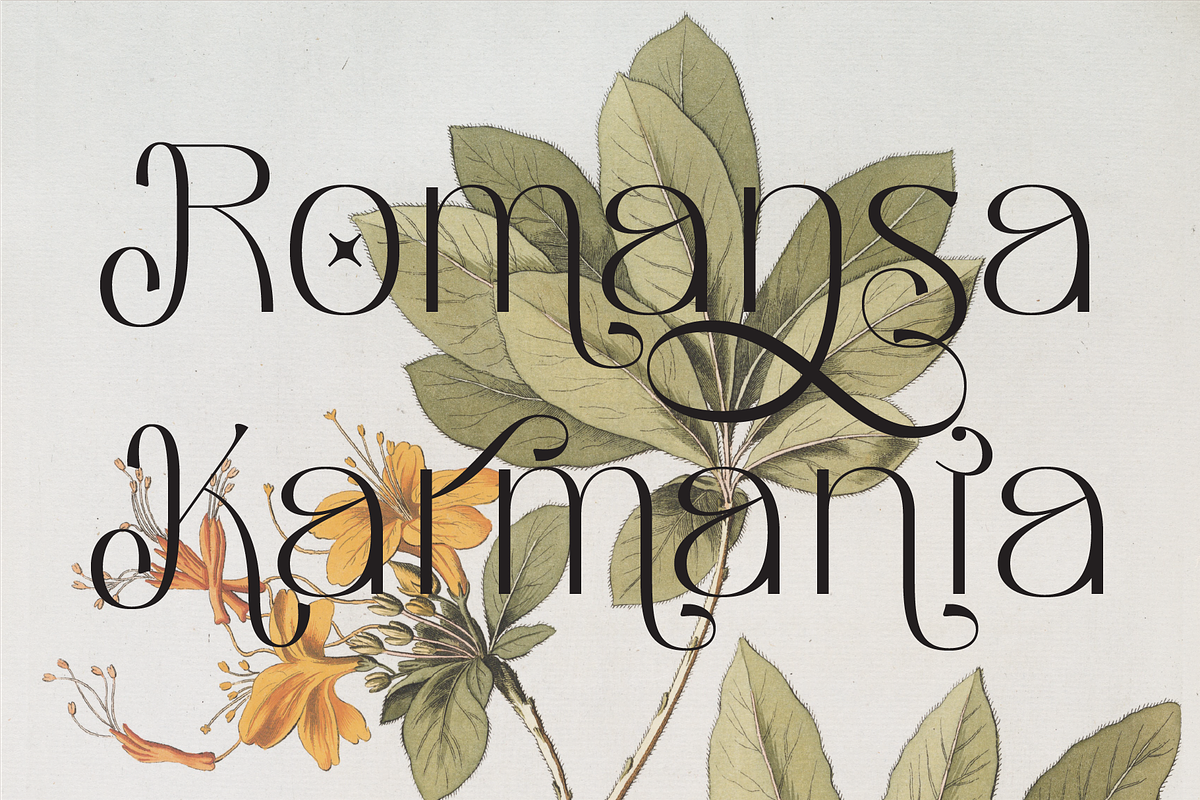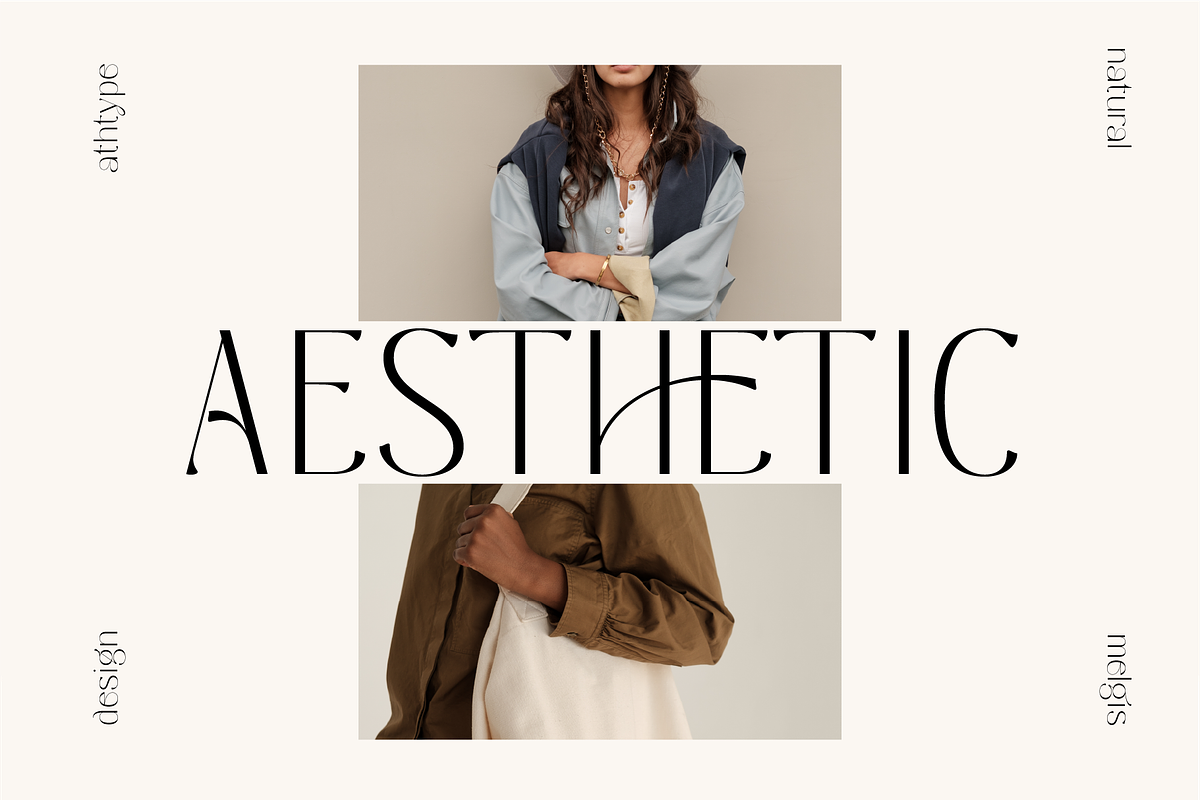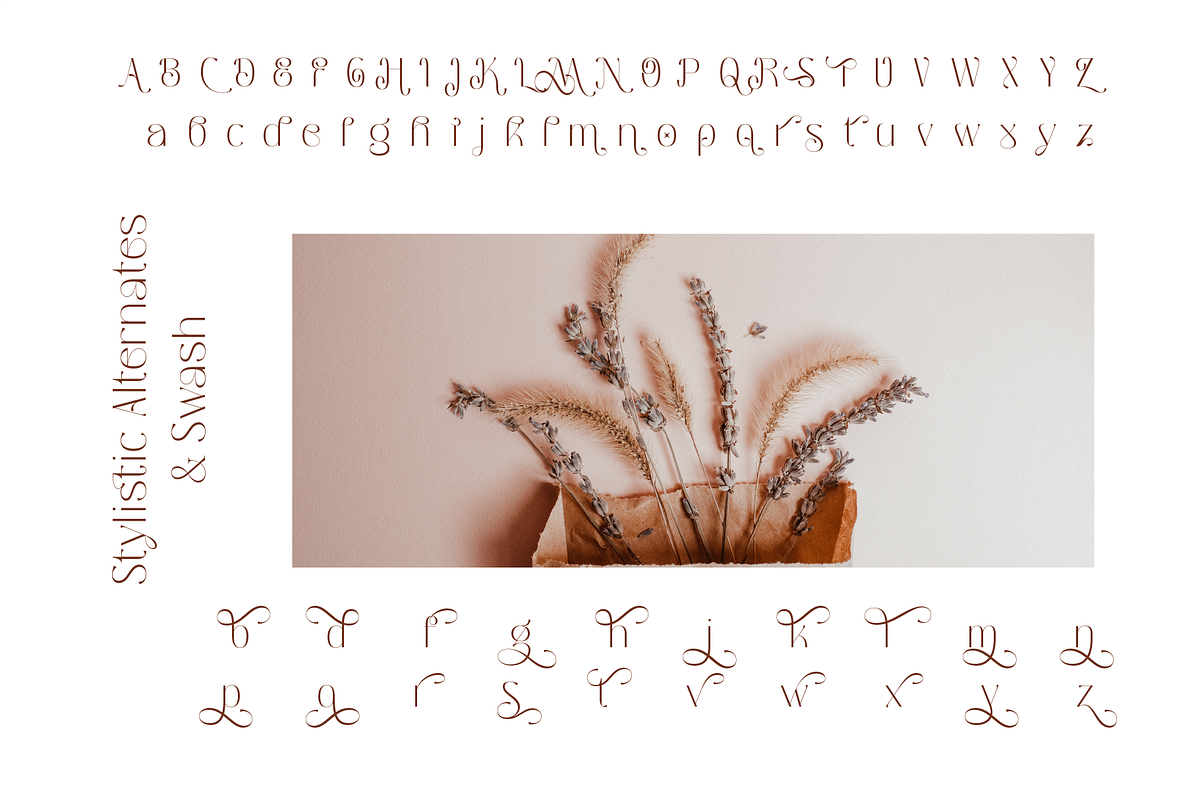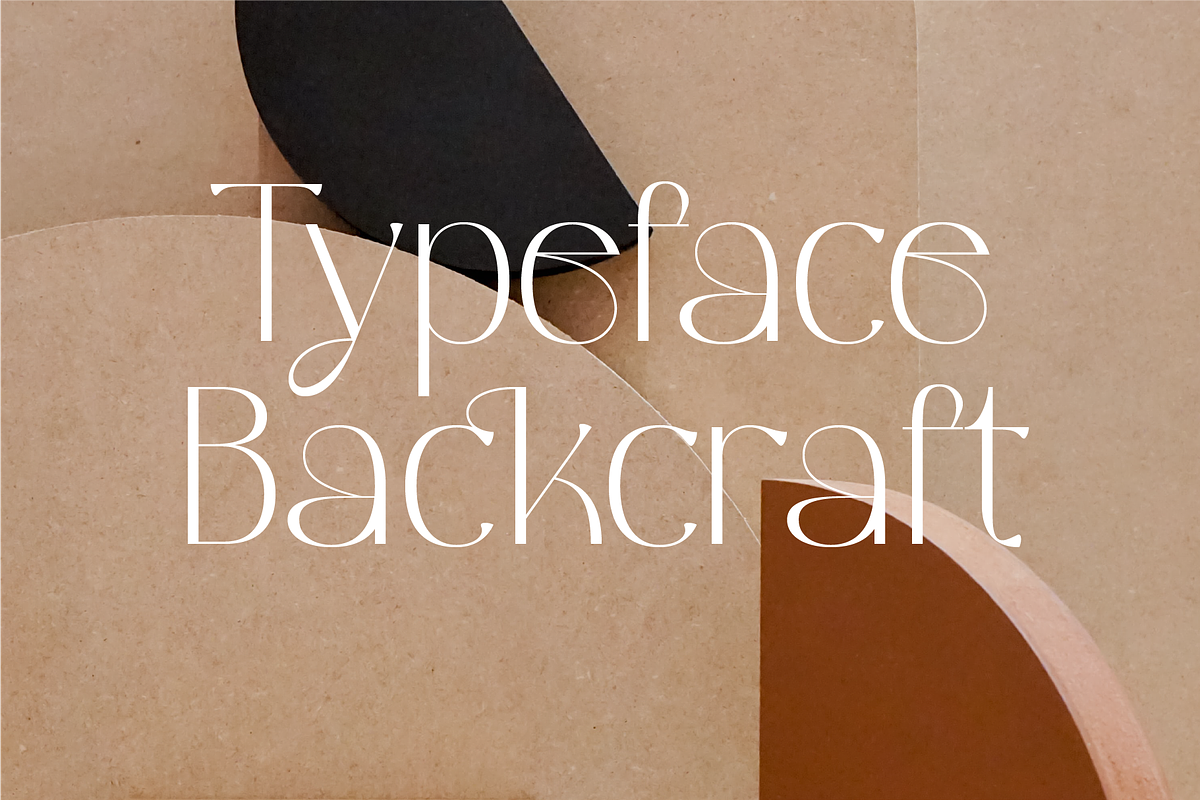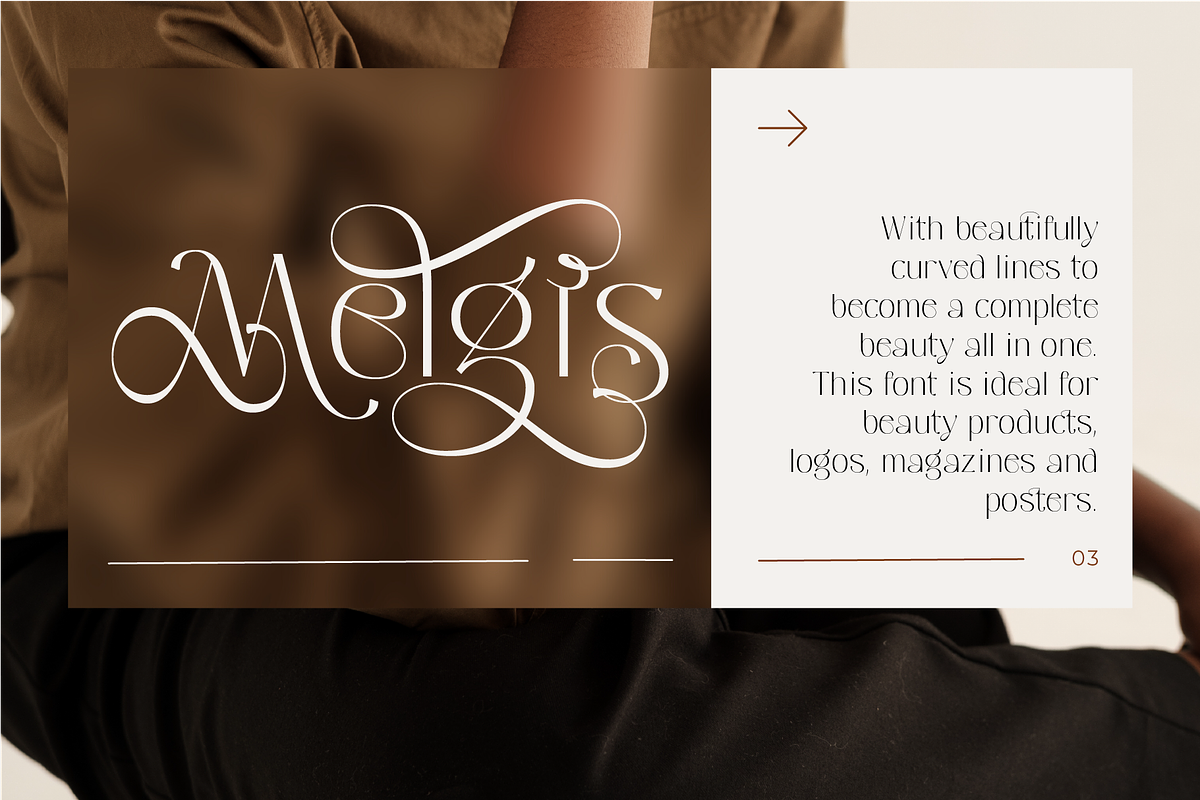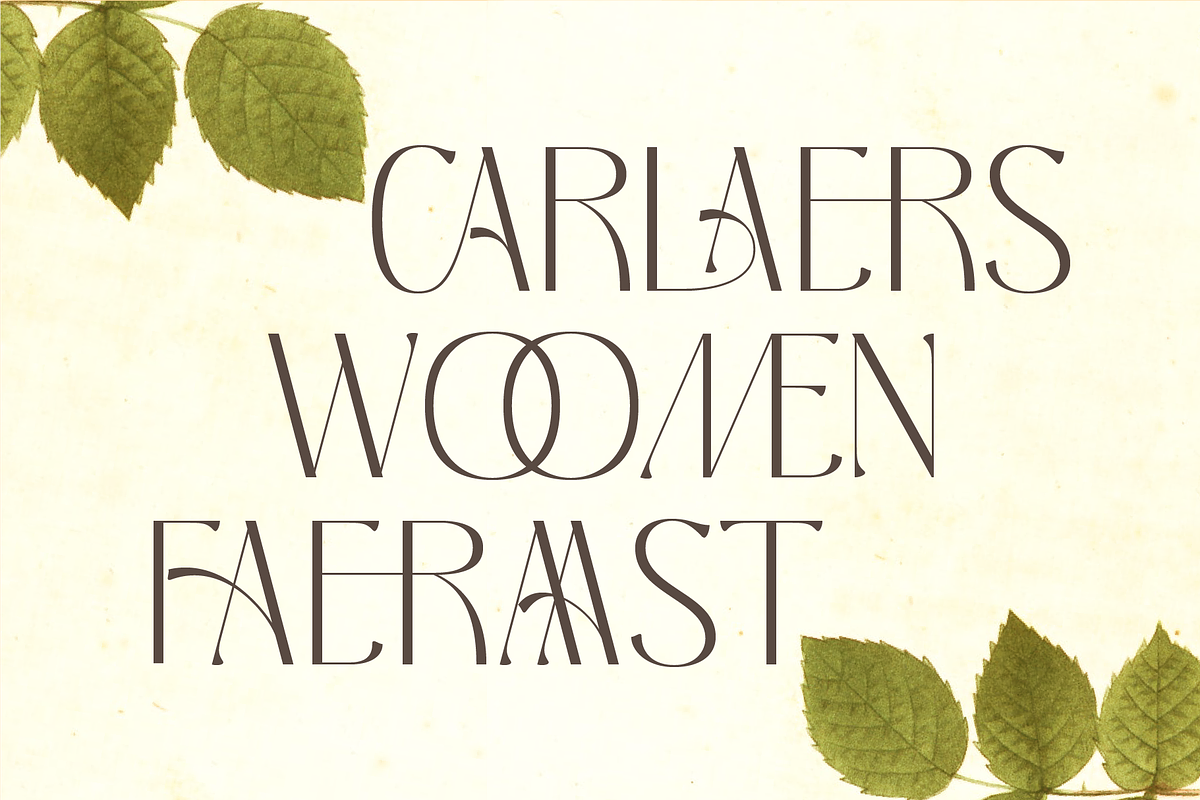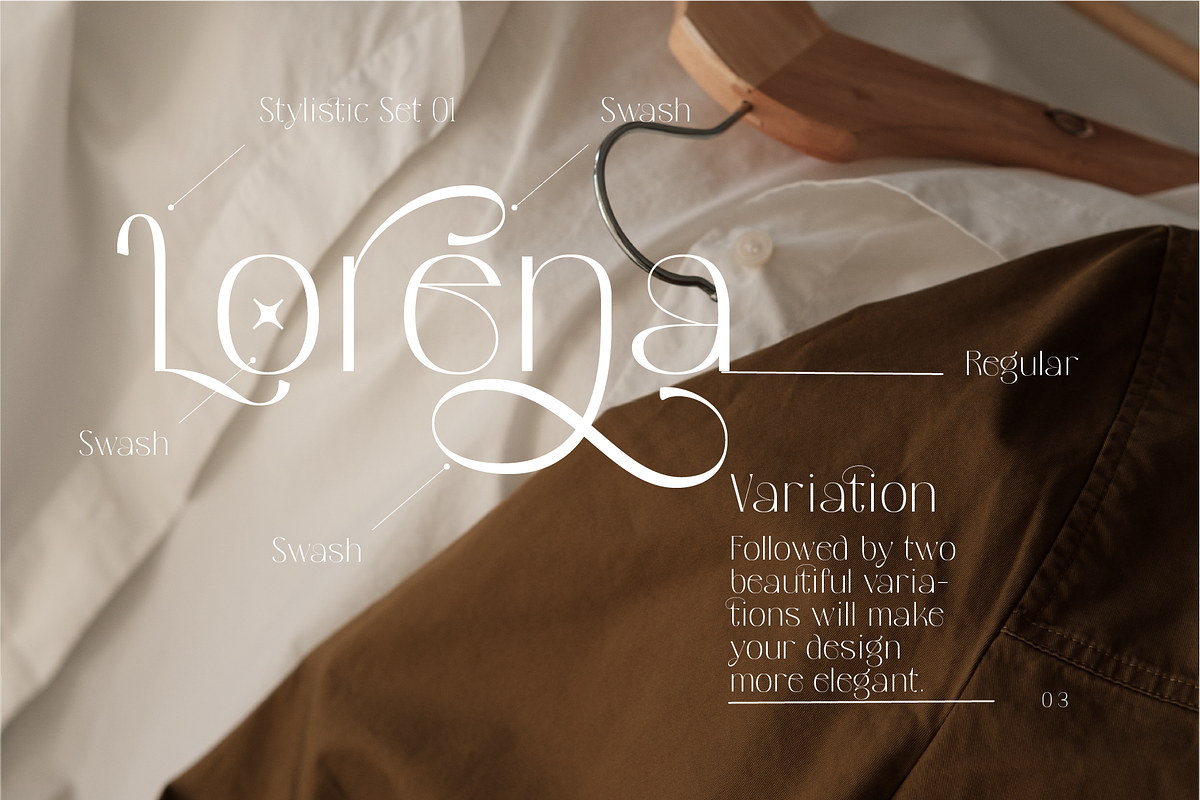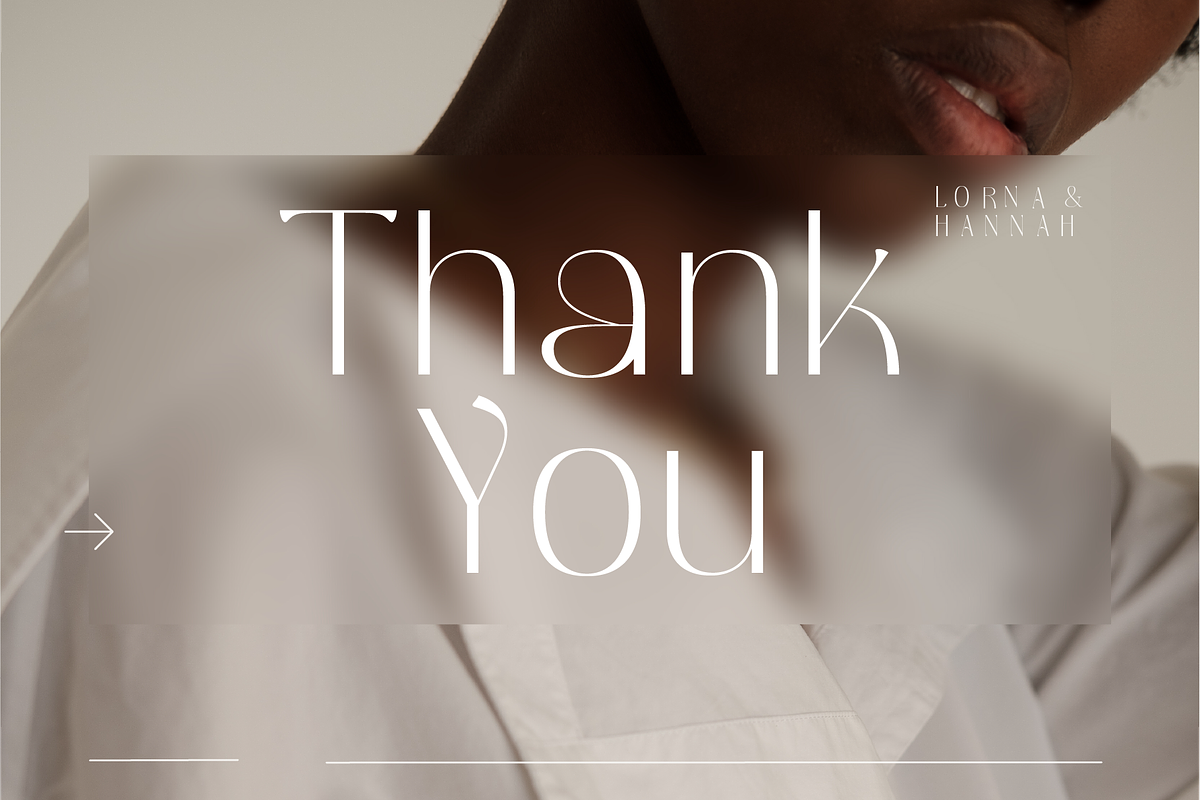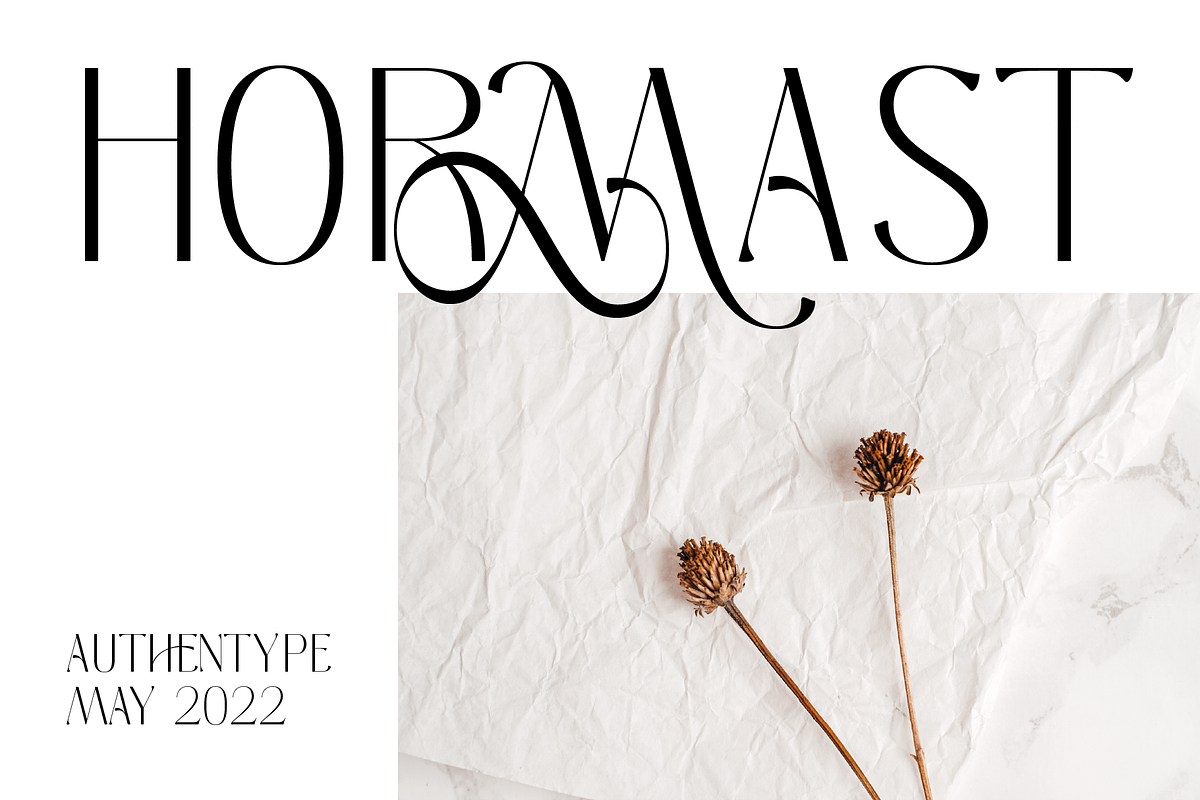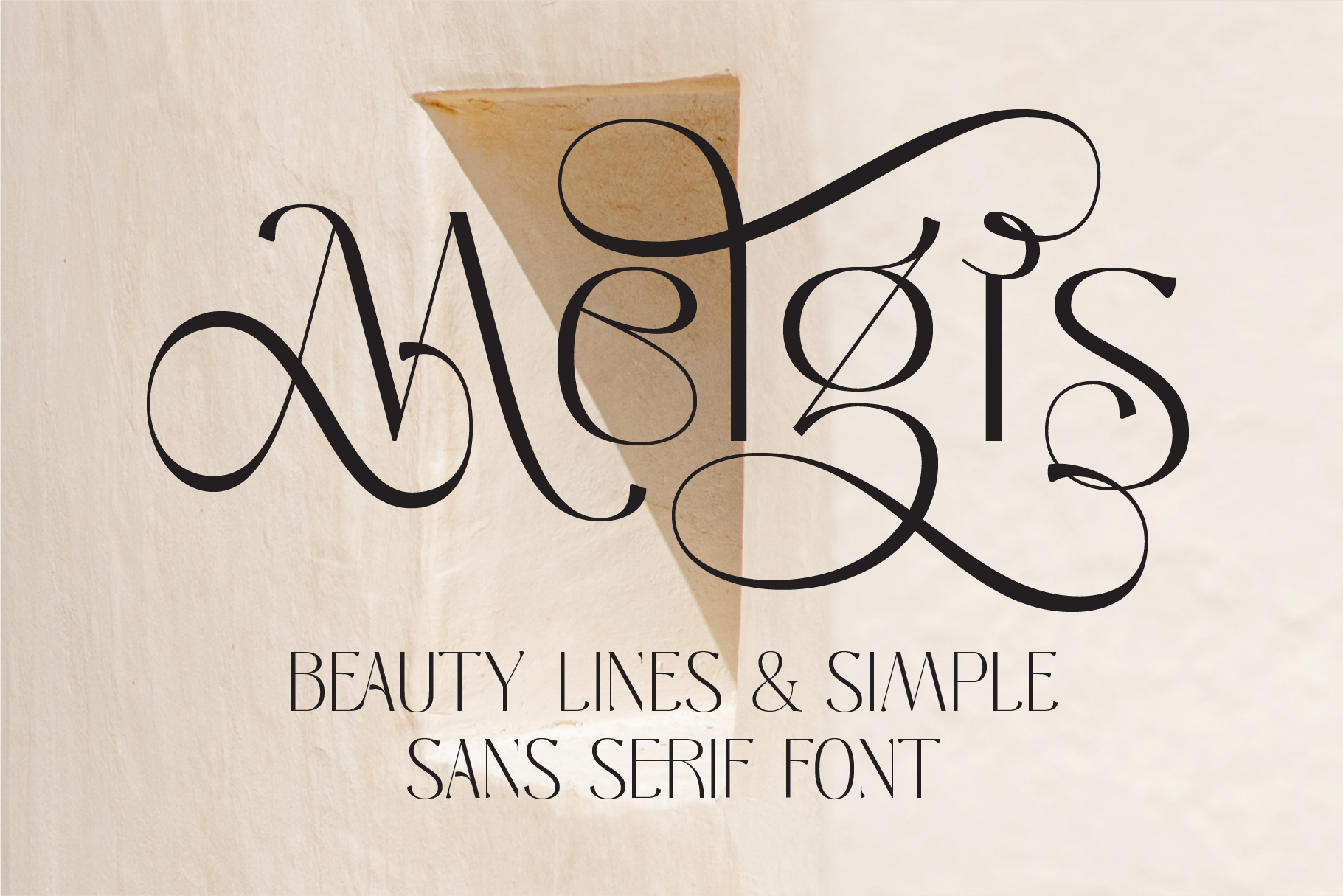
Melgis - Beauty Line & Simple Font
Melgis - Beauty lines & simple sans serif font with beautifully curved lines to become a complete beauty all in one.
This font is ideal for beauty brand design with swash glyph suitable for your beautiful elegant design concept.
Melgis - Beauty lines & simple sans serif font style for Poster, Magazine, Beauty brand design.